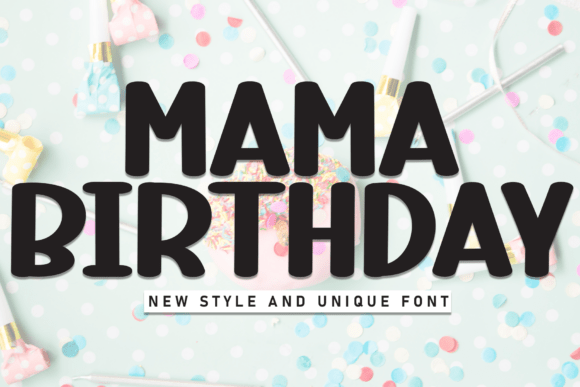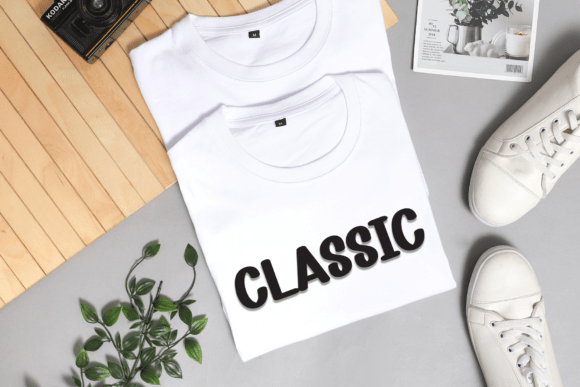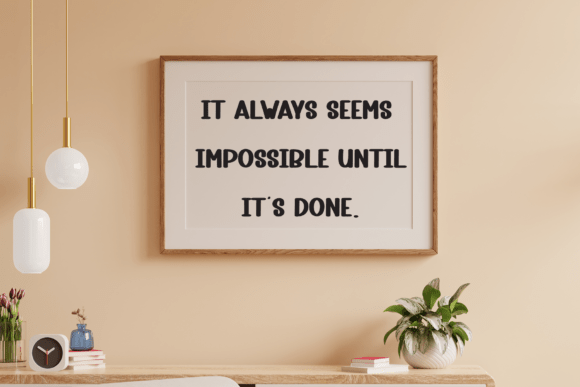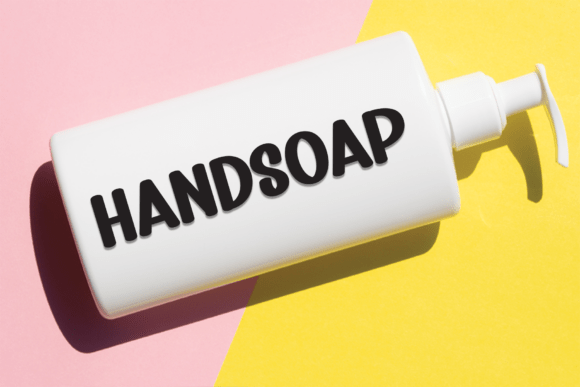
Mama Birthday Font
About the Mama Birthday Font
Experience the unique personality of Mama Birthday Font, a font designed for impact. Mama Birthday is a casual and neat display font that radiates a fresh, friendly vibe. With clean lines and a relaxed structure, it’s perfect for packaging, posters, and social media graphics. The approachable design adds charm and clarity to projects while maintaining a polished appearance.
Its friendly, casual nature makes it ideal for projects requiring a warm and approachable feel, such as children’s products, birthday invitations, or branding for small businesses with a personable touch. However, its display-oriented design isn’t suited to body text or UI elements; the letterforms aren’t optimized for readability in large blocks of text.
Pair Mama Birthday with a clean sans-serif like Open Sans for body copy to create a balanced contrast. For a more playful feel, consider pairing it with a hand-drawn script font, but maintain a legible choice to avoid visual clutter. A geometric sans-serif could also work well, offering a modern counterpoint to Mama Birthday’s relaxed forms.
The overall personality is cheerful and informal, making it a strong choice for projects that prioritize a lighthearted and friendly aesthetic.
Mama Birthday Font Usage Examples
Mama Birthday Font Example